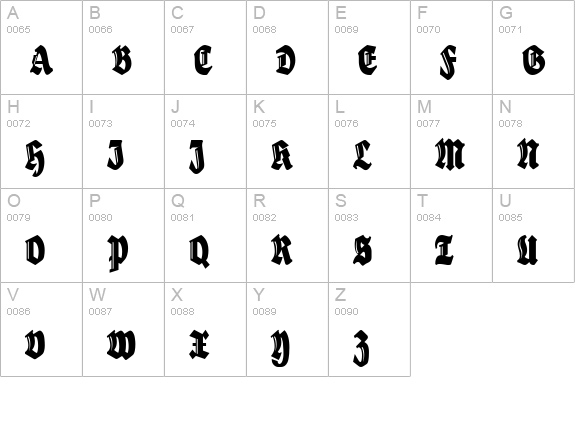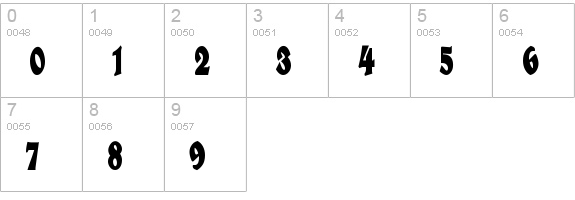
HerzogVonGraf ExtraTall Font Details
HerzogVonGraf ExtraTall font is a striking and elegant typeface that exudes sophistication and modernity. With its tall and slender letterforms, this font commands attention and adds a touch of refinement to any design project. Perfect for headlines, logos, branding, and more, HerzogVonGraf ExtraTall is a versatile font that can elevate your creations to new heights. And the best part? HerzogVonGraf ExtraTall is available for free download at FontsMarket.com. So go ahead and enhance your designs with this exquisite font without breaking the bank. Download HerzogVonGraf ExtraTall today and let your creativity soar!